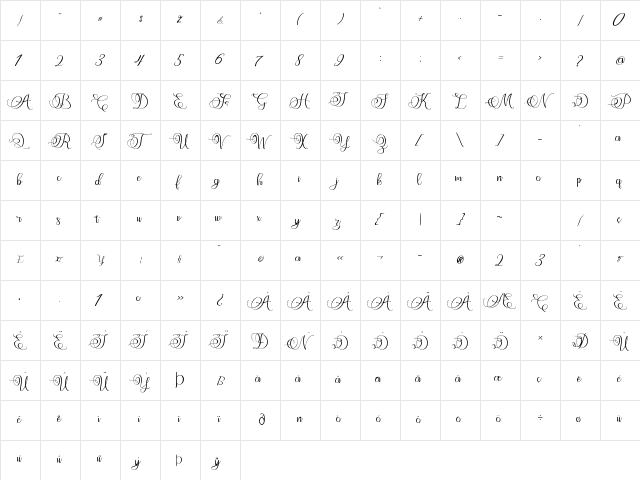
Angeliny Regular
| Designer | Virgiawan Listanto |
Design Context for Angeliny Typeface
Angeliny is a composed and adaptable typeface that performs quietly and consistently across a wide range of design contexts.